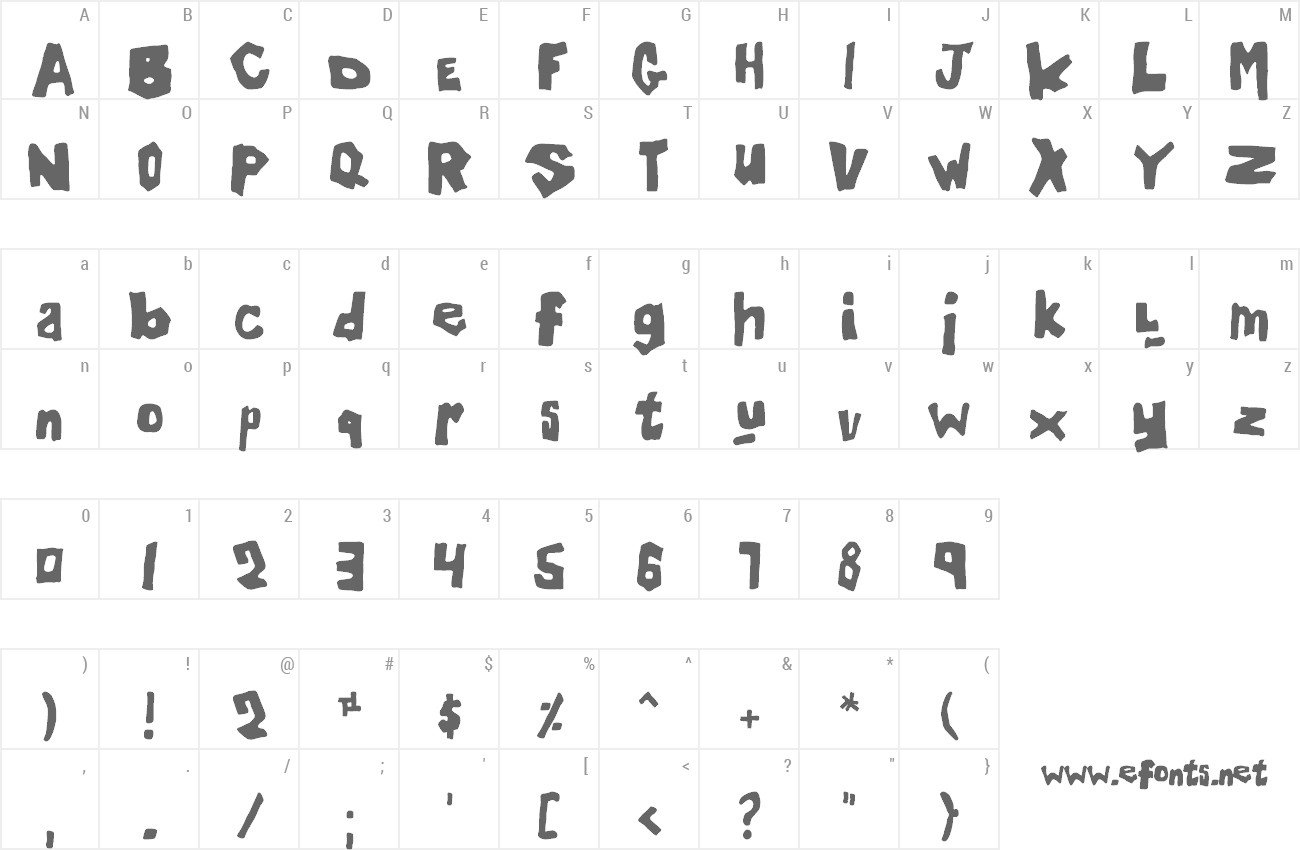
| Font name: | Orgy |
| Author: | Fat Cat Fonts |
| Note by Fat Cat Fonts | |
| This font is based on the writing on The Glove's album of the same name (Orgy was a song on the record). Orgy is free to use, but if you like it please consider sending me a donation at FatCatFonts.com. Thanks! :D |